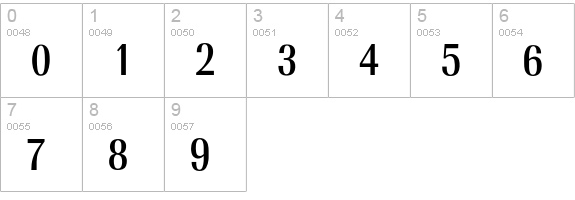
Trabant Font Details
Trabant font is a visually stunning typeface that is sure to captivate any audience. With its sleek and modern design, this font is perfect for adding a touch of elegance to any project. The clean lines and smooth curves of Trabant font give it a timeless appeal that is both sophisticated and stylish. One of the best features of Trabant font is that it is free to download. That's right, you can get this incredible font without spending a dime. Whether you're a professional designer or just someone looking to add a bit of flair to your personal projects, Trabant font is the perfect choice. To get your hands on Trabant font, simply head over to FontsMarket.com. There, you'll find a wide selection of high-quality fonts, including Trabant font. With just a few clicks, you can have this beautiful typeface ready to use in your next design. Don't miss out on the opportunity to elevate your designs with Trabant font. Download it for free at FontsMarket.com and start creating stunning visuals today.